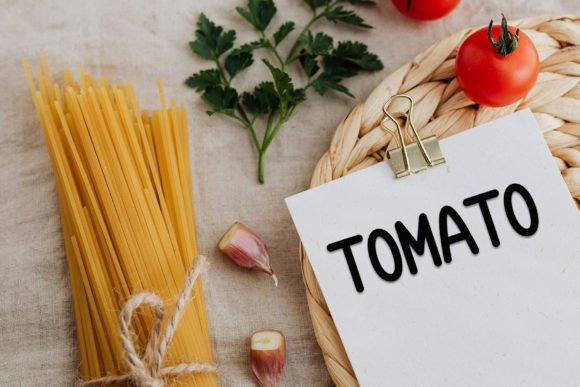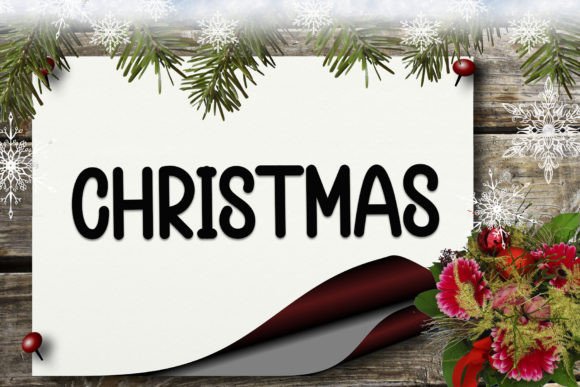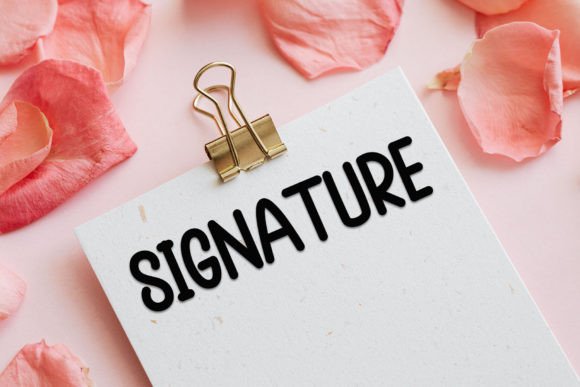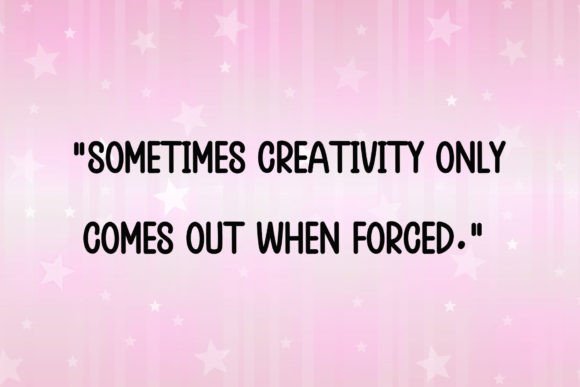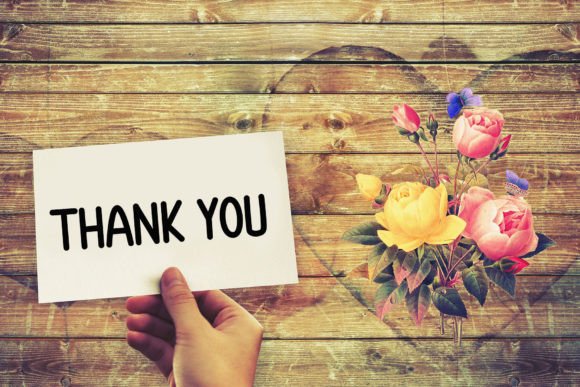
Introducing Dragonfly Font: A Sweet and Friendly Handwritten Delight
Are you on the hunt for a font that can add a touch of warmth and personality to your designs? Look no further than the Dragonfly Font! This sweet and friendly handwritten font is perfect for designers and crafters who want to create unique and eye-catching projects. In this article, we’ll dive into the features and benefits of the Dragonfly Font, and explore how it can elevate your designs to the next level.
A Natural and Unique Style
Dragonfly Font boasts a natural and unique style that makes it incredibly versatile. Its handwritten charm is perfect for a wide range of designs, from rustic and vintage to modern and playful. Whether you’re working on a branding project, a craft tutorial, or a digital design, Dragonfly Font is sure to bring a touch of personality and whimsy to your work.
The beauty of Dragonfly Font lies in its incredible flexibility. With this font, the only limit is your imagination! You can use it to create stunning titles, headings, and body text for a variety of projects, including:
- Branding and packaging designs
- Craft tutorials and patterns
- Digital art and illustrations
- Web designs and blogs
One of the best features of Dragonfly Font is that it’s PUA (Private Use Area) coded. This means that you can easily access all the amazing glyphs and ligatures without any hassle. PUA coding allows you to unlock the full potential of the font, giving you access to a wide range of special characters, swashes, and alternates.
What is PUA Coding?
For those who may not be familiar, PUA coding is a way of mapping font characters to a specific area of the Unicode standard. This allows font creators to include additional characters and glyphs that aren’t part of the standard Unicode character set. In the case of Dragonfly Font, PUA coding means that you can access a wide range of extra characters, including ligatures, swashes, and alternates.
So, what are the benefits of using Dragonfly Font for designers and crafters? Here are just a few:
- Unique and personalized designs: With Dragonfly Font, you can create unique and personalized designs that stand out from the crowd.
- Flexibility: Dragonfly Font can be used for a wide range of projects, from digital designs to craft patterns and tutorials.
- Time-saving: With PUA coding, you can access all the glyphs and ligatures you need in one place, saving you time and effort.